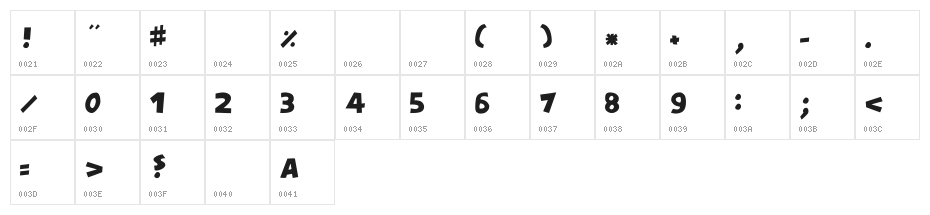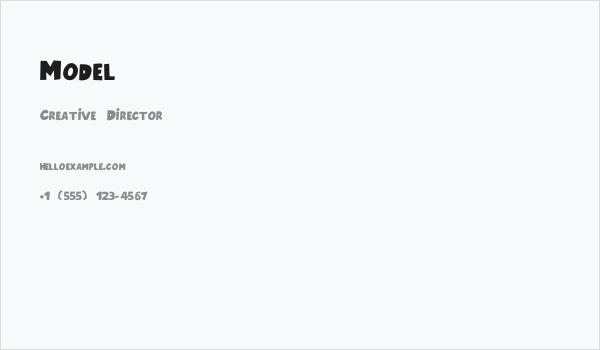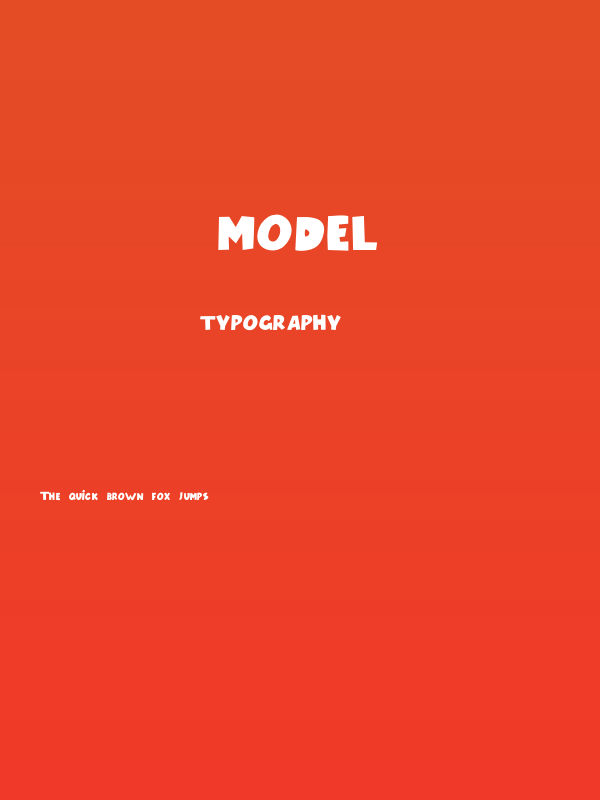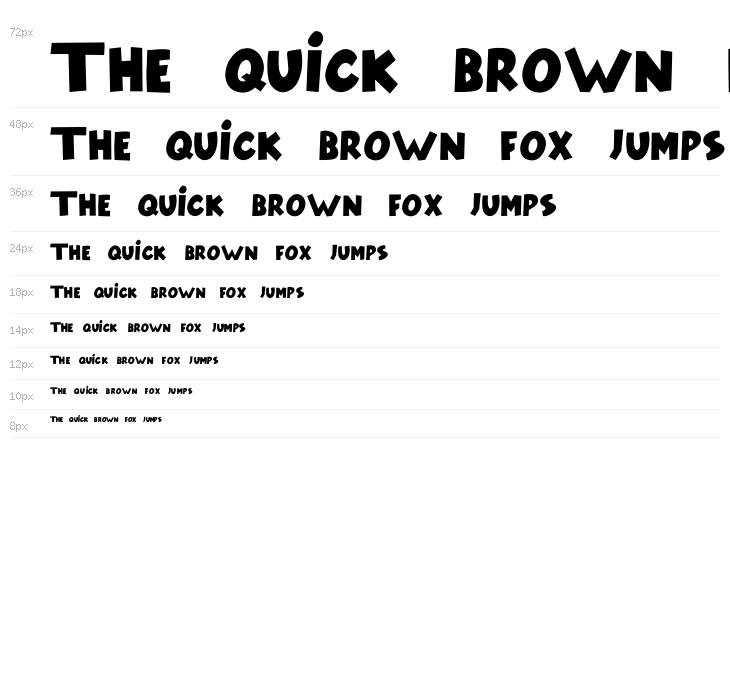
Model Font
Model Description
This font features a bold and playful design with thick, heavy strokes that give it a strong presence. The characters are slightly irregular, adding a whimsical and dynamic feel. The uppercase and lowercase letters maintain a consistent style, with rounded edges and a slightly condensed form. The numbers and special characters follow the same playful aesthetic, making the font suitable for creative and informal applications. Its boldness ensures high visibility, making it ideal for eye-catching designs.
| Proposed Projects | Ideal for children's books, comic strips, playful branding, and eye-catching posters. |